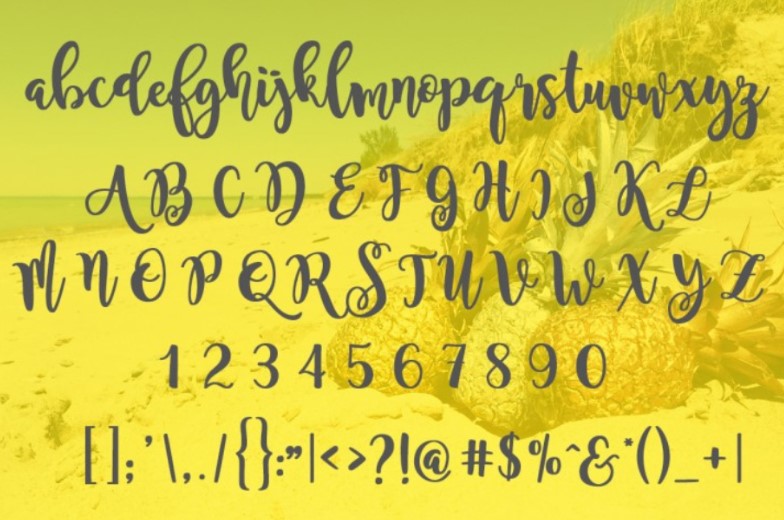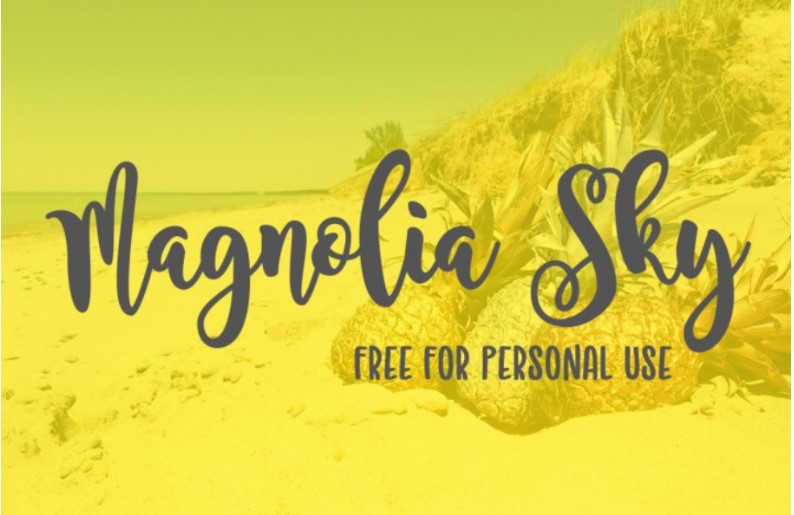
Magnolia Sky Font
Magnolia Sky Font is famous for its use in commercials. This typeface is widely utilized for the pairing function. This is also present for free download. The font is applicable for large signs and symptoms and signs, labels, titles, headlines.
It’s an extended way a super font for papers, varsity font is cool typography designed as a gift-day and big form of figures that cowl easy. Magnolia Sky Font Free Its ink traps secure clean average appearance even on low-notable papers. As a cease to give up the result, its dimensions are looking to help the situation in pinnacle and width, consequently makes grand traditional marketing and advertising and marketing employer fonts. It’s miles one of the exquisite layout fonts for titles, headings, and notices.
Due to reality, its dimensions have the reason of increasing place in pinnacle and width. Every really one in every of a kind the tropical script is the cutting-edge-day-day show font, the circle of households. It has to come to be produced as a person or lady duty inspired by using a pinnacle-notch format. Download In combination, his direct and rounded traces seen the mind of classical shape – vertical mountaineering pilasters, semi-spherical arch, a horizontal cornices.
In addition, an attractive and lively version can use float to lower again as a separate font. The font like large display font consists of the ligatures, ordinals.